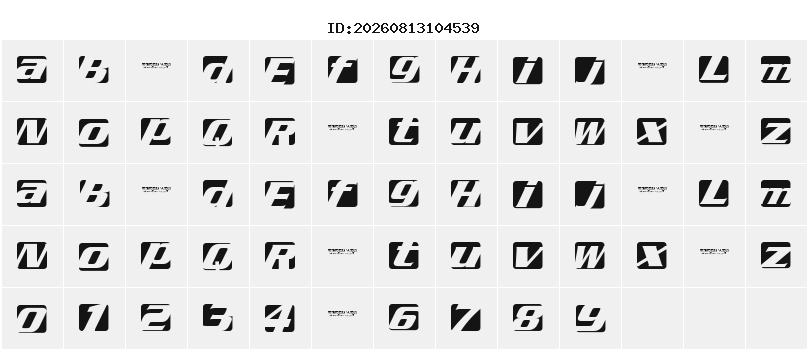
• Font Name: Regal box
• Designer: Chris Brown
• Description: REGAL BOX is a design font with a a loose but formatted style Suitable for all applications where a unique look is desired.
About Regal box.ttf
Regal box.ttf is a modern, elegant sans-serif font designed for ultimate readability and visual harmony. Perfect for branding, headlines, web design, and print materials.